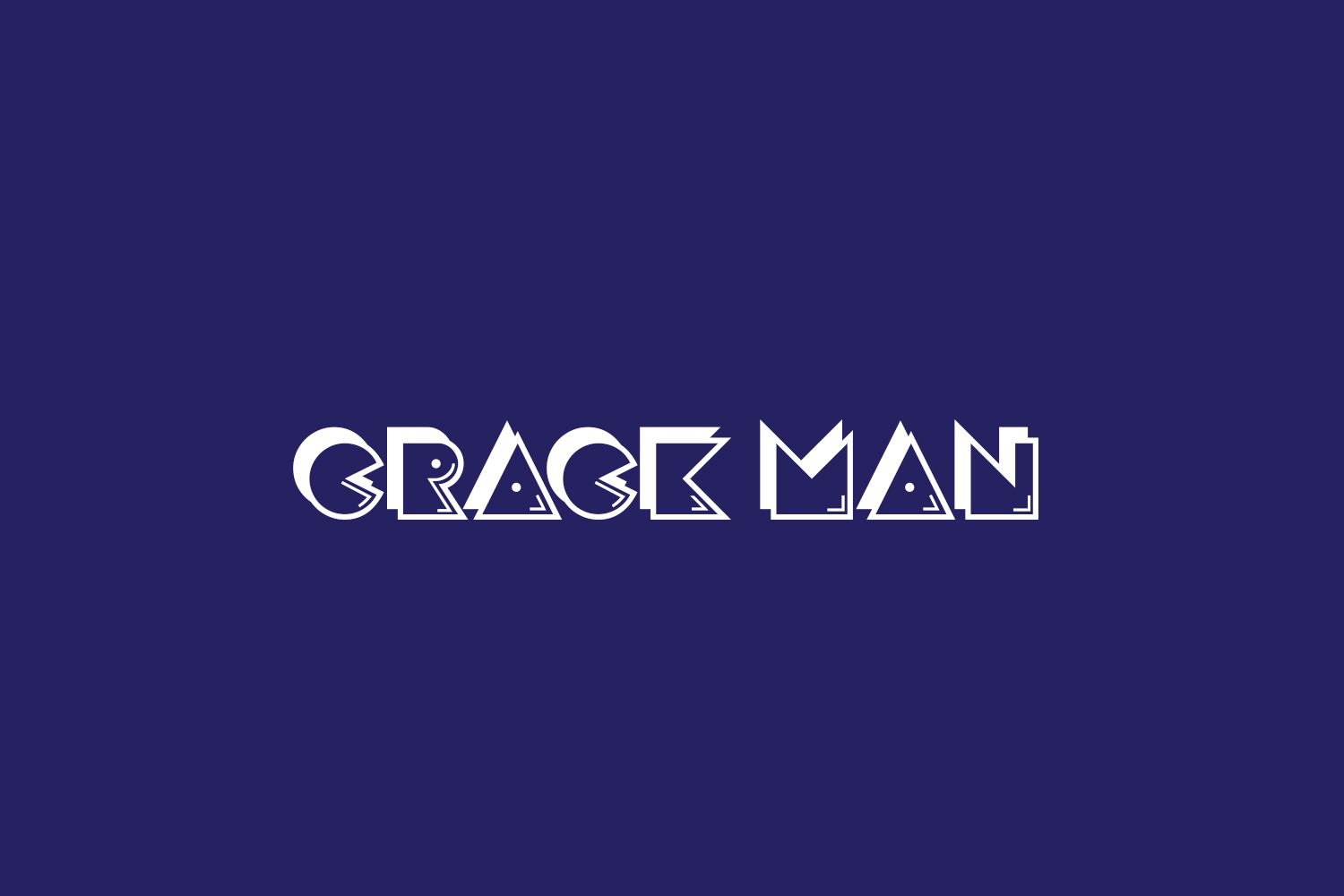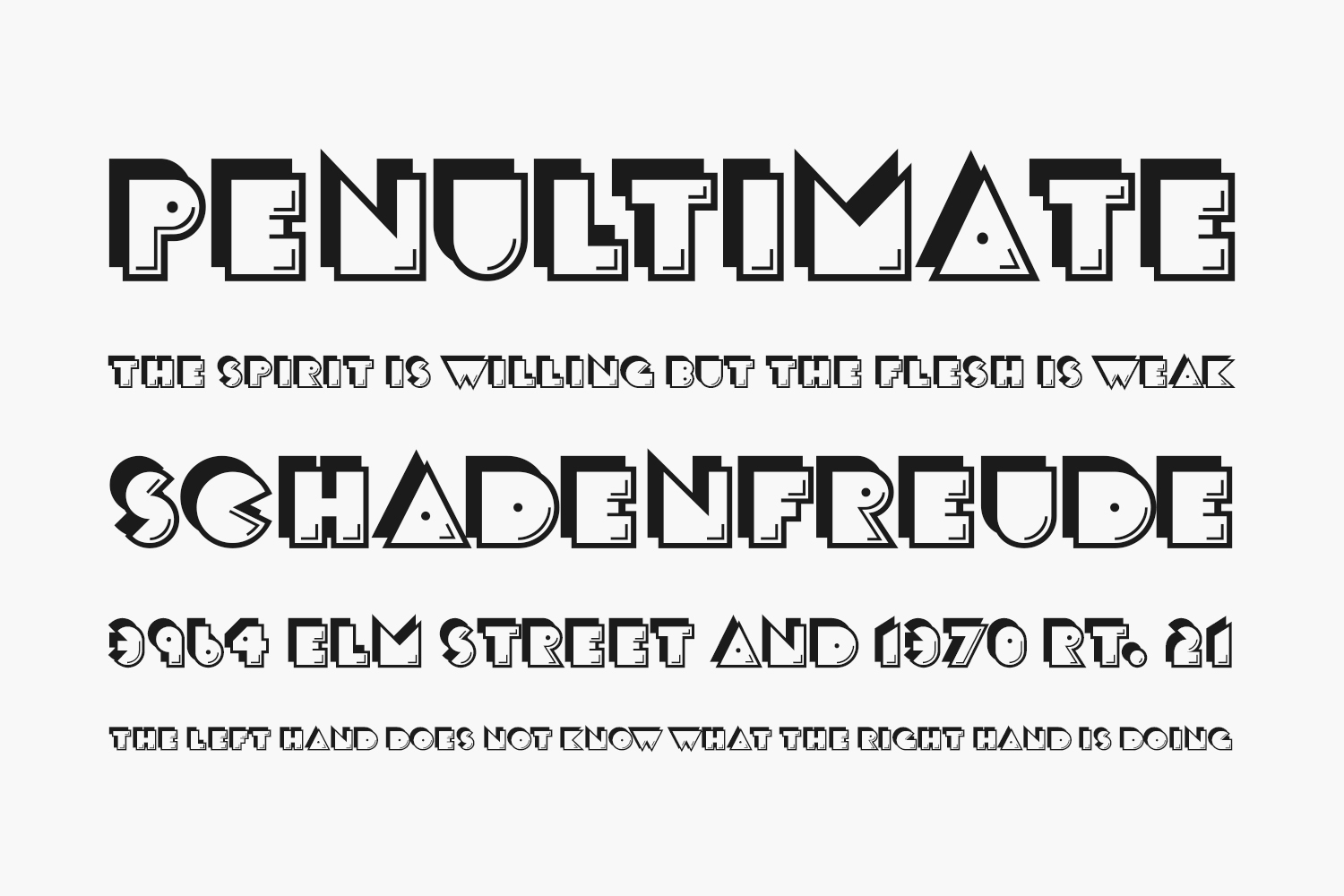
Crack Man Free Font Family is an art deco style font, counterless headliner with an early 1980’s video game slant. This font includes a license that allows free commercial use: sometimes referred to as a desktop license. This allows you to install the font on a computer and use it to create posters, web graphics, game graphics, t-shirts, videos, signs, logos and more. Read the license agreement for details. Please purchase the full version for commercial use.
Designed by Typodermicfonts
Crack Man Regular The quick brown fox jumps over the lazy dog
Crack Man Front The quick brown fox jumps over the lazy dog
Crack Man Back The quick brown fox jumps over the lazy dog